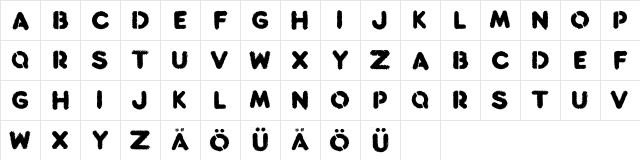
Reclaim Regular Free Font
Reclaim Regular
Foundry: Nils von Blanc
Designer: Nils von Blanc
Design Context for Reclaim
Reclaim is a composed and adaptable typeface that performs quietly and consistently across a wide range of design contexts.